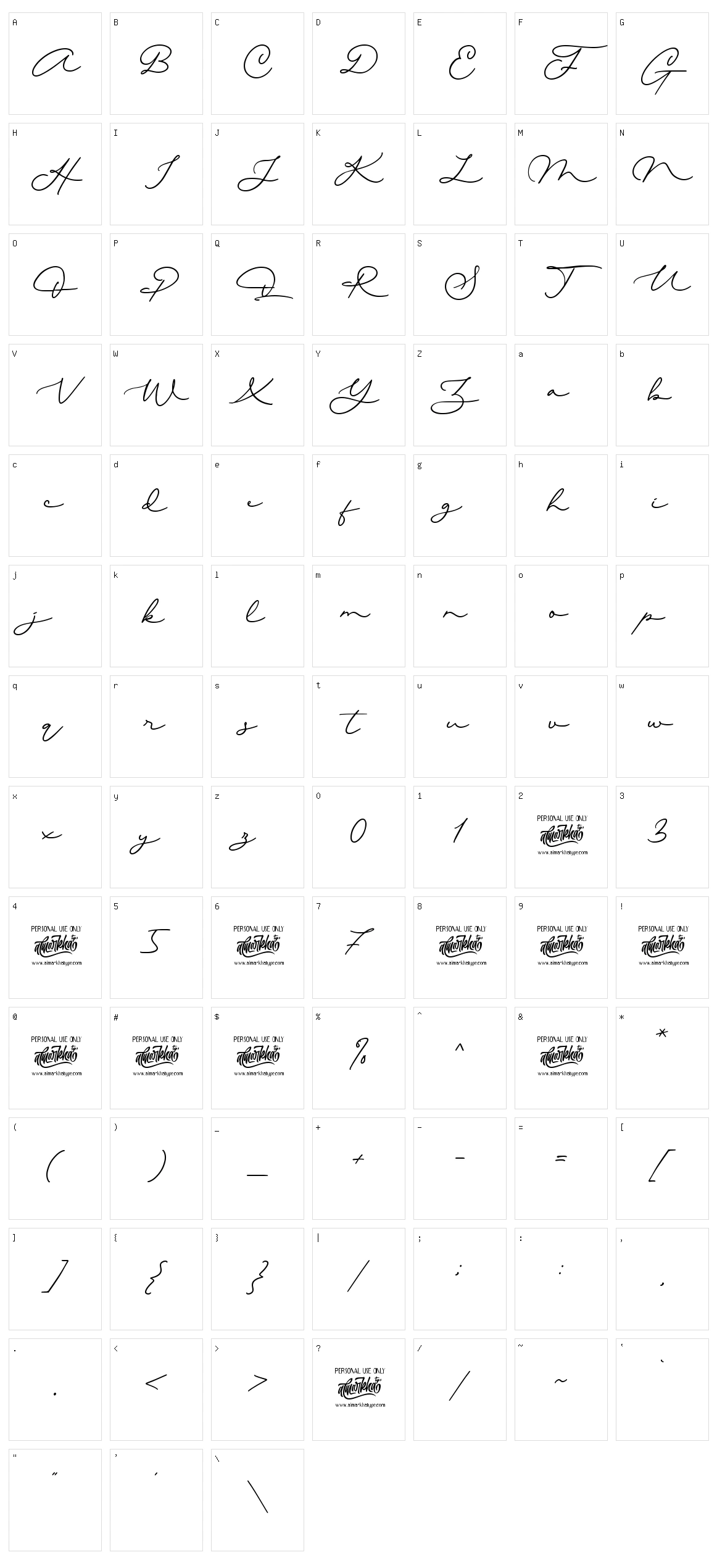
The free font Quick Letter is carefully designed by Almarkhatype, showcasing a thoughtful balance of creativity and usability and falls under the Script font style. When you download the ZIP file, it contains only 382.42 KB of font files, making it lightweight and quick to download. Please review the license details below to understand permitted usage and distribution rights. If license information is not available, we recommend using this font for personal projects only or contacting the author directly for commercial usage permissions.